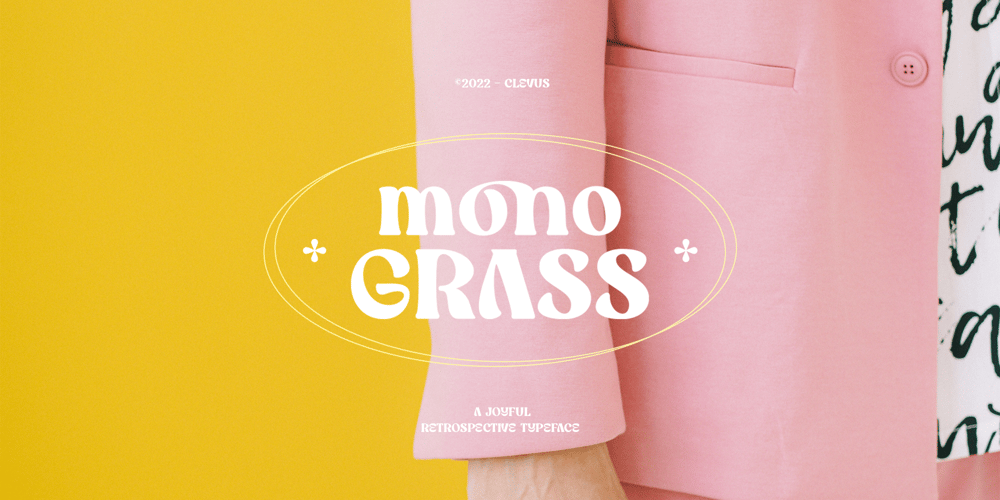
Mono Grass Font Family was designed by Alfinu Zafir and published by Clevus. Mono Grass contains 1 styles and family package options. Proudly present Mono Grass Typeface that makes us feel nostalgic! It brings back the 60s to 70s vibe with a joyful and retro look, with a uniquely crafted touch to each letter.Comes with alternatives and ligatures, and helps to create stunning magazine imagery, quotes, posts, blog posts, branding projects, logo, poster and much more.Font Features :Lettres, numbers, symbols, and punctuation 46 alternates and ligatures No special software required they may be used even in canva, any basic program /website apps that allows standard fonts That’s it folks! Multilingual SupportLanguage Support: Danish, English, Estonian, Filipino, Finnish, French, Friulian, Galician, German, Gusii, Indonesian, Irish, Italian, Luxembourgish, Norwegian Bokmål, Norwegian Nynorsk, Nyankole, Oromo, Portuguese, Romansh, Rombo, Spanish, Swedish, Swiss-German, Uzbek (Latin).Follow My Shop For Upcoming Updates Including Additional Glyphs And Language Support. And Please Message Me If You Want Your Language Included or If There Are Any Features or Glyph Requests, Feel Free to Send me A Message. Have a Good Day !